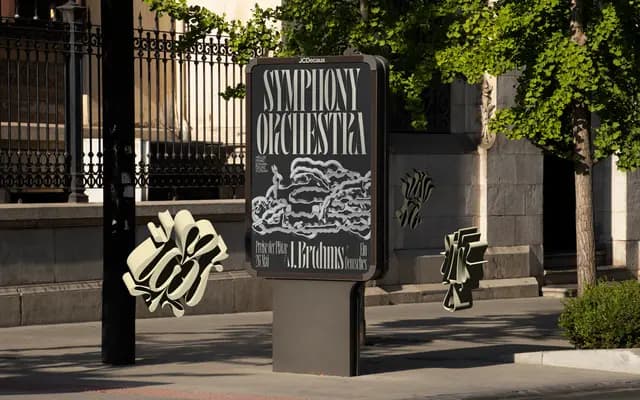
The Off Set
The Off Set packages every typeface Off Type have released into a single purchase, adding 79 styles not available in the free trial downloads. The collection ranges from the LCD-inspired Sector and the distorted Didone Weird Serif to the condensed Neue Montreal Squeezed series and the musical Rhapsody. Ten Photoshop mockup templates by Bendito Mockups are included alongside OTF, TTF, WOFF and WOFF2 formats.
A bundled collection of 16 typefaces spanning display, experimental, serif, sans-serif and decorative styles; categorised as display given the overtly expressive, graphic-led character of the majority of included fonts.